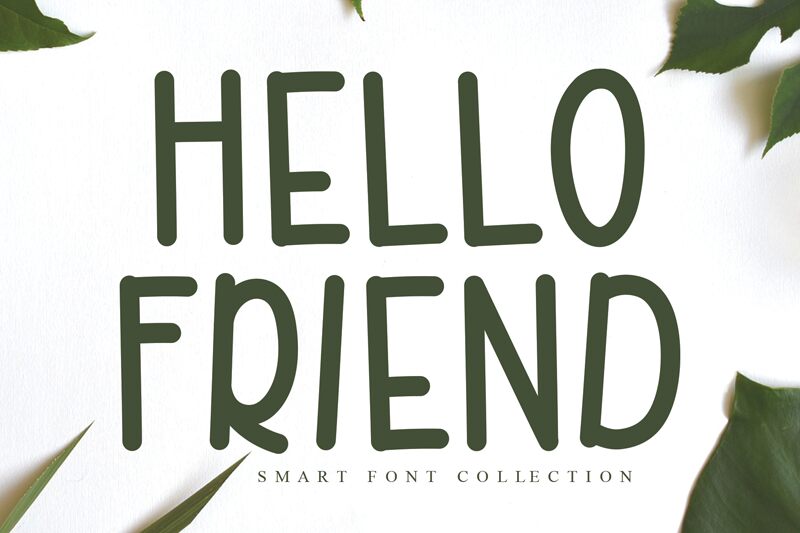
HELLO FRIEND
Hello Friend font is an amazing script typeface designed by Andi Moz.
the latest style letters are perfect for wall displays, wedding invitations, social media post logos, advertisements, product packaging, product designs, labels, photography, watermarks, invitations, stationery,
and any project that requires taste handwriting.